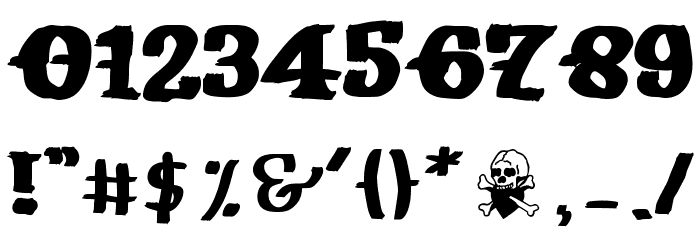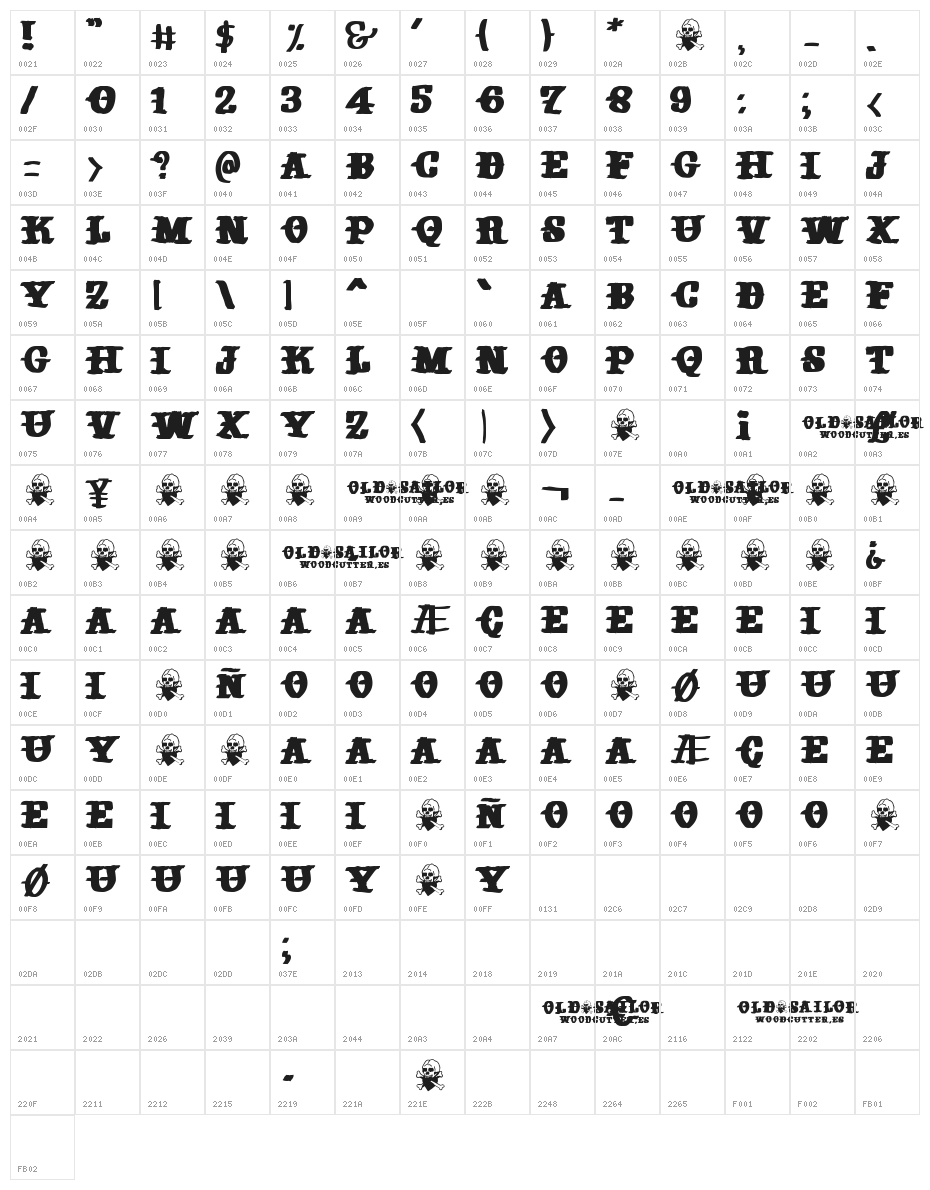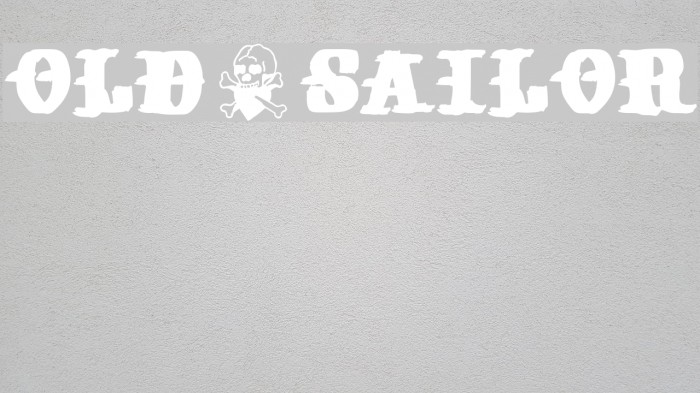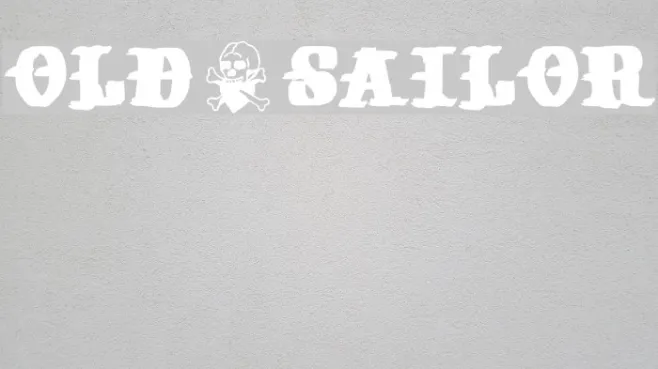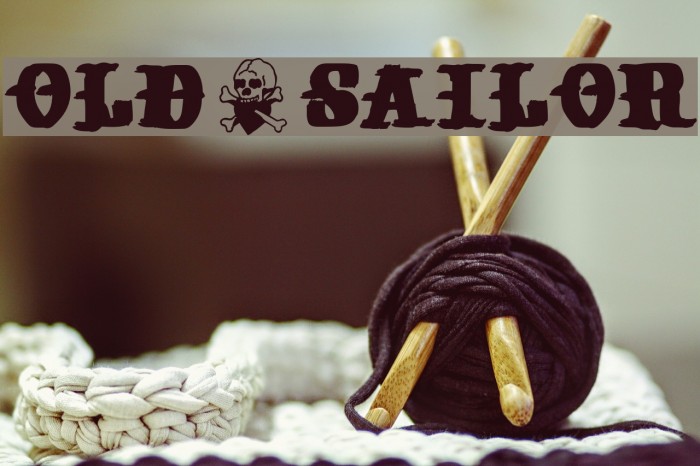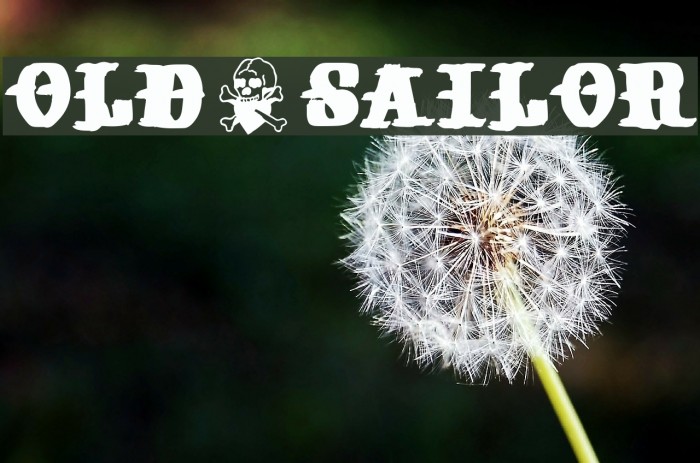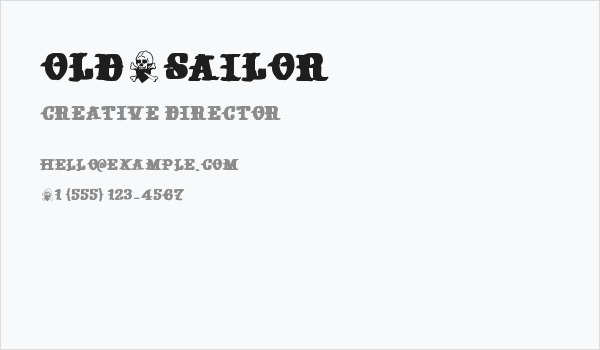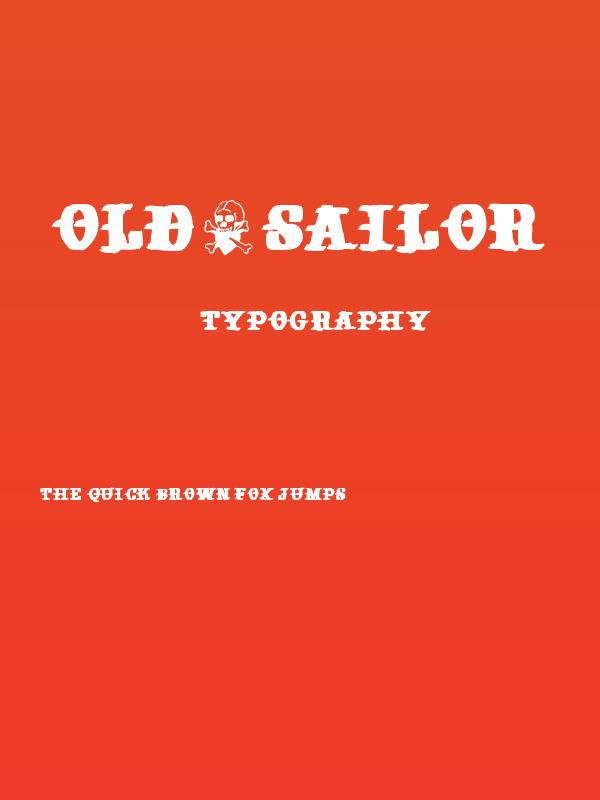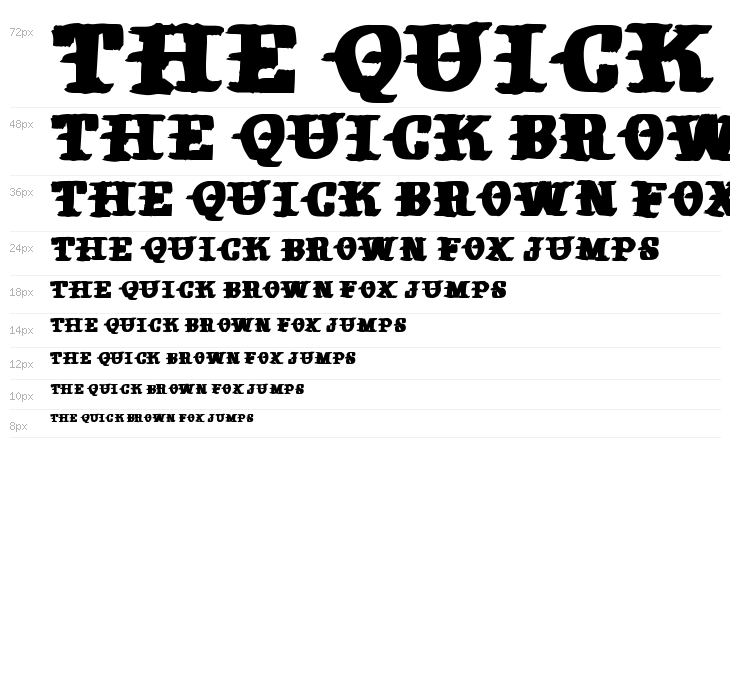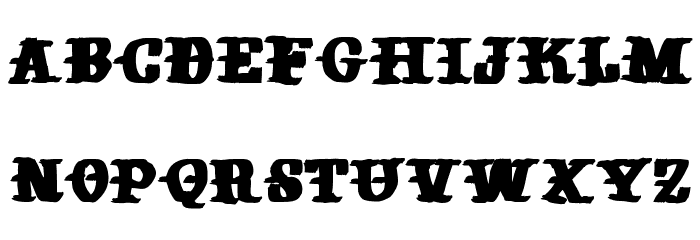
old+sailor Font
old+sailor Description
This font exudes a rugged and adventurous spirit, reminiscent of classic maritime themes. The bold, thick strokes and slightly irregular edges give it a hand-crafted, vintage feel. Each character is distinct, with a strong presence that commands attention. The uppercase letters are particularly striking, with a boldness that suggests strength and resilience. The numbers and special characters maintain this robust style, making them ideal for creating impactful designs. The font's overall aesthetic is both nostalgic and bold, perfect for projects that require a touch of the old-world charm with a modern twist.
| Use Case | Logos, Posters, Branding |
| Proposed Projects | Ideal for branding, posters, and designs that require a vintage or nautical theme. |